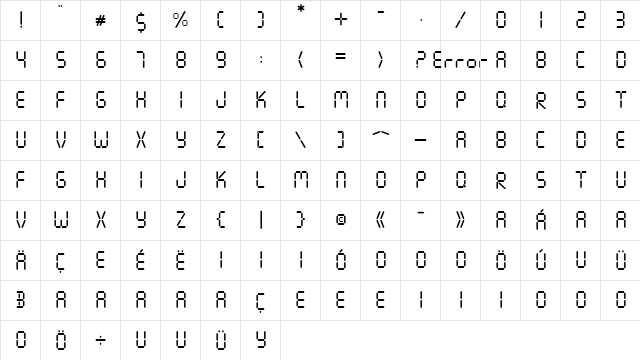
Seven Segment Regular
| Foundry | Krafti Lab |
| Designer | Onur Cem TAN |
Design Context for Seven Segment Typeface
Seven Segment is a composed and adaptable typeface that performs quietly and consistently across a wide range of design contexts.